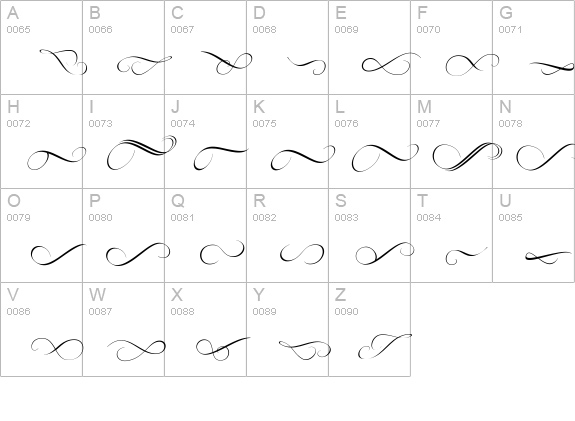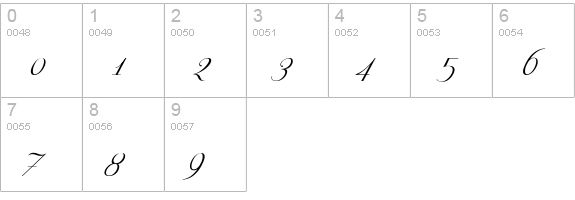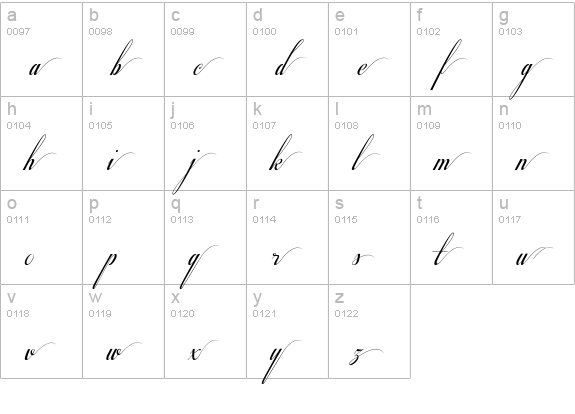
Respective Swashes Slanted Font Details
Introducing Respective Swashes Slanted font, a stunning and elegant typeface that will add a touch of sophistication to any design project. This font is the perfect choice for those looking to make a statement with their typography. Respective Swashes Slanted font features beautiful swashes and slanted letterforms that exude a sense of elegance and style. With its unique and artistic design, this font will captivate your audience and leave a lasting impression. What makes Respective Swashes Slanted font even more appealing is that it is available for free! Yes, you read that right - this incredible font can be yours without spending a dime. Simply head over to FontsMarket.com and download this font effortlessly. It's the perfect opportunity to enhance your design projects without breaking the bank. Whether you're creating branding materials, invitations, posters, or any other design project, Respective Swashes Slanted font will elevate your work to a whole new level. Its sleek and modern aesthetic will instantly grab attention and make your message stand out. Don't miss out on the chance to add Respective Swashes Slanted font to your font collection. Download it for free today at FontsMarket.com and unlock a world of endless design possibilities. With this font, your creations will shine with professionalism and creativity.